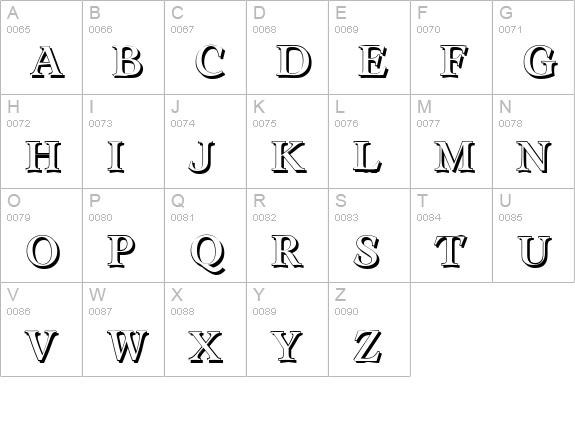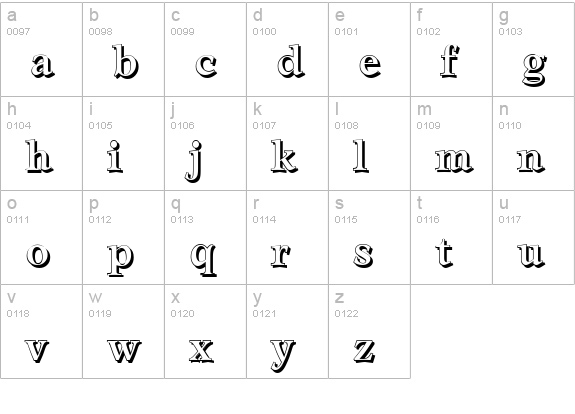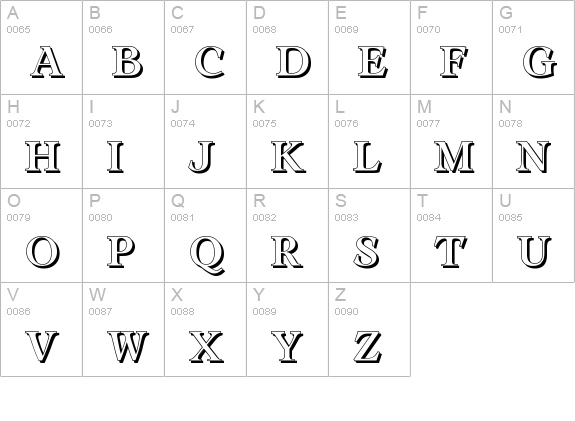
LeamingtonShadow-Regular Font Details
LeamingtonShadow-Regular is the standard, neutral variant in the LeamingtonShadow typeface family \xE2\x80\x94 well suited to general body text, paragraphs, and standard typographic work.
LeamingtonShadow-Regular is a versatile and stylish font that adds a touch of elegance to any design. With its bold and unique shadowed appearance, this font is perfect for creating eye-catching headlines, logos, and branding materials. The sleek lines and modern aesthetic of LeamingtonShadow-Regular make it a great choice for both digital and print projects. Best of all, LeamingtonShadow-Regular is available for free download at FontsMarket.com. Whether you're a graphic designer, web developer, or just someone looking to add a special touch to your projects, this font is a fantastic choice. Download LeamingtonShadow-Regular today and elevate your designs with this stunning and modern typeface.